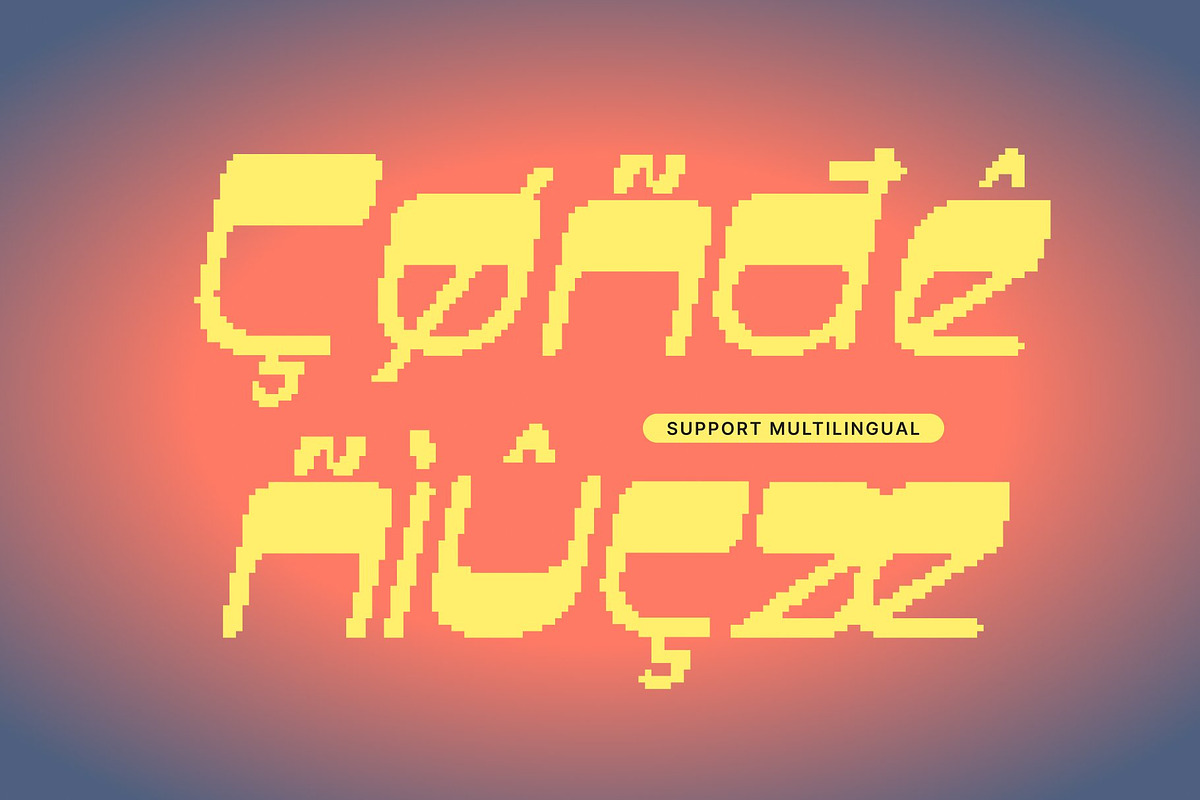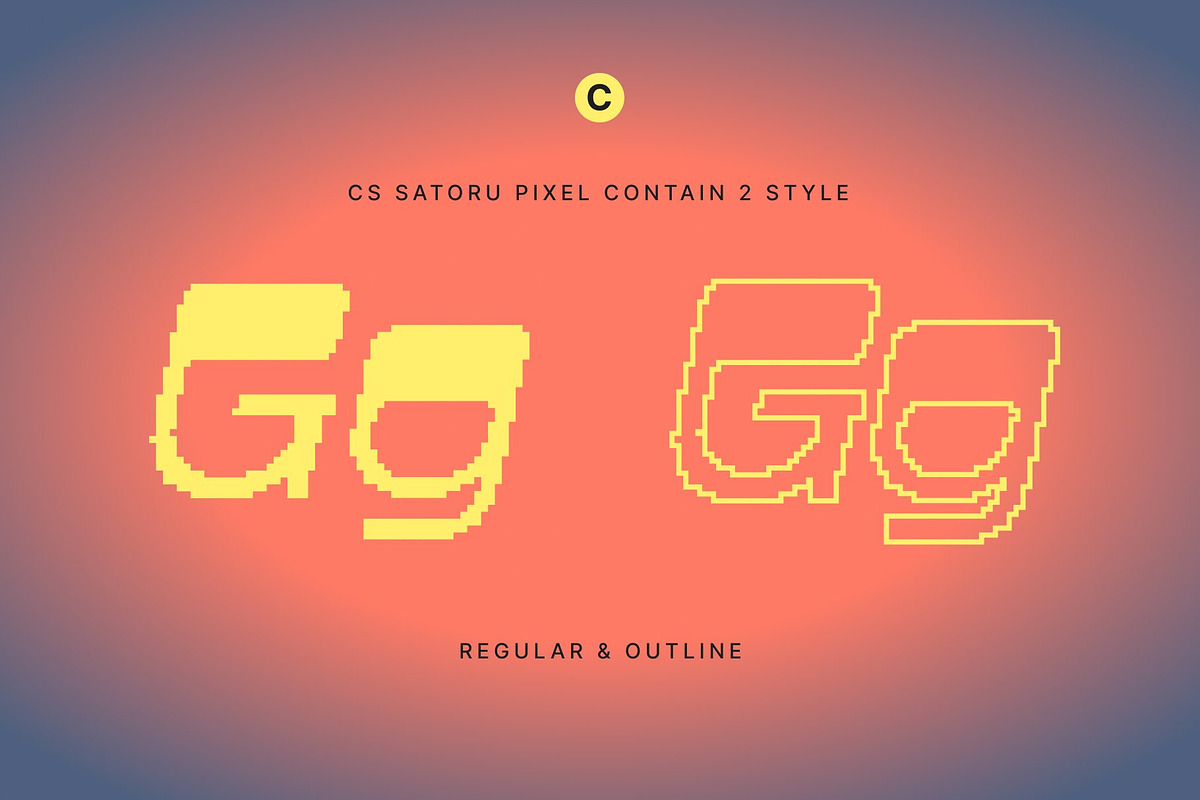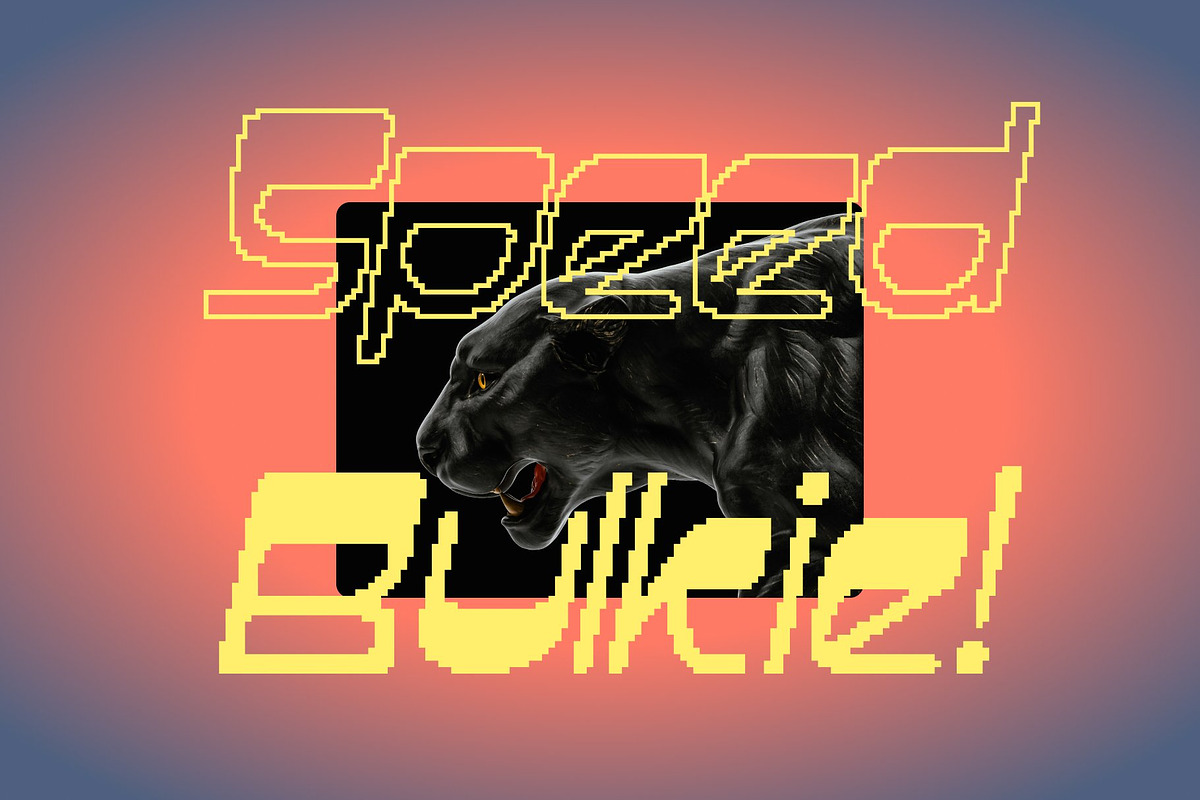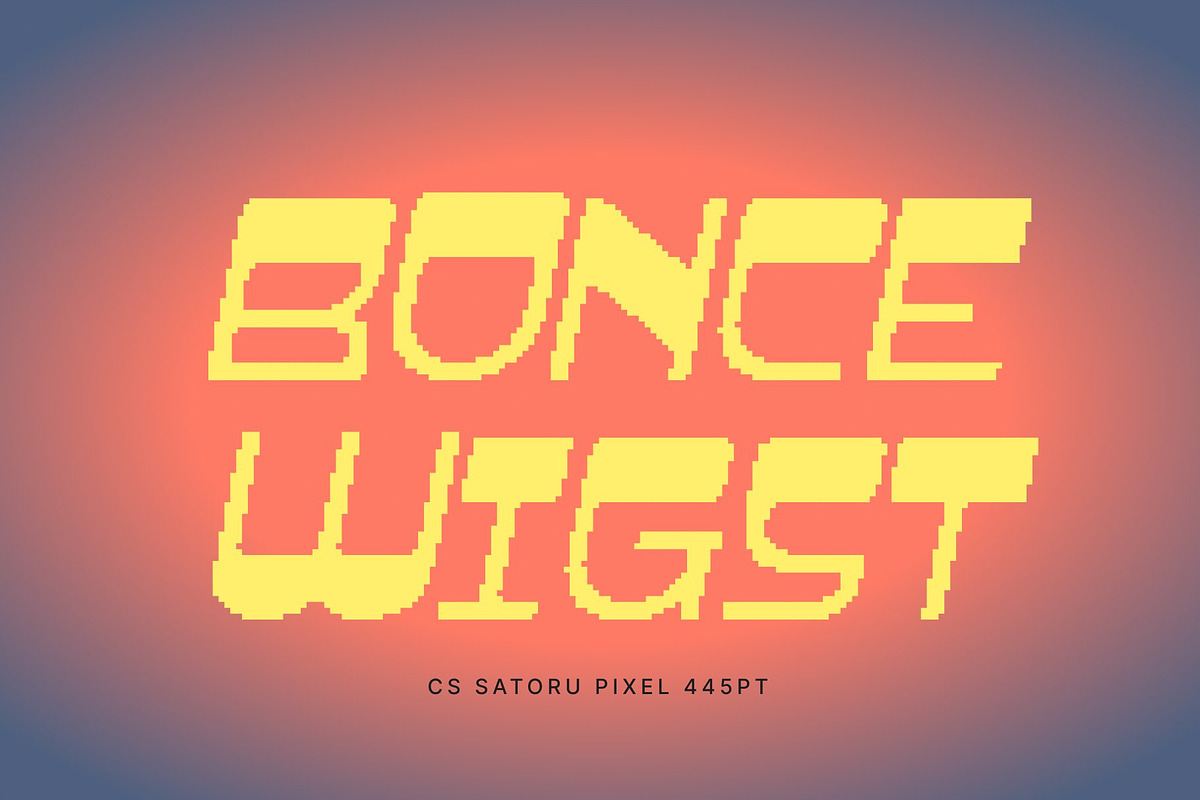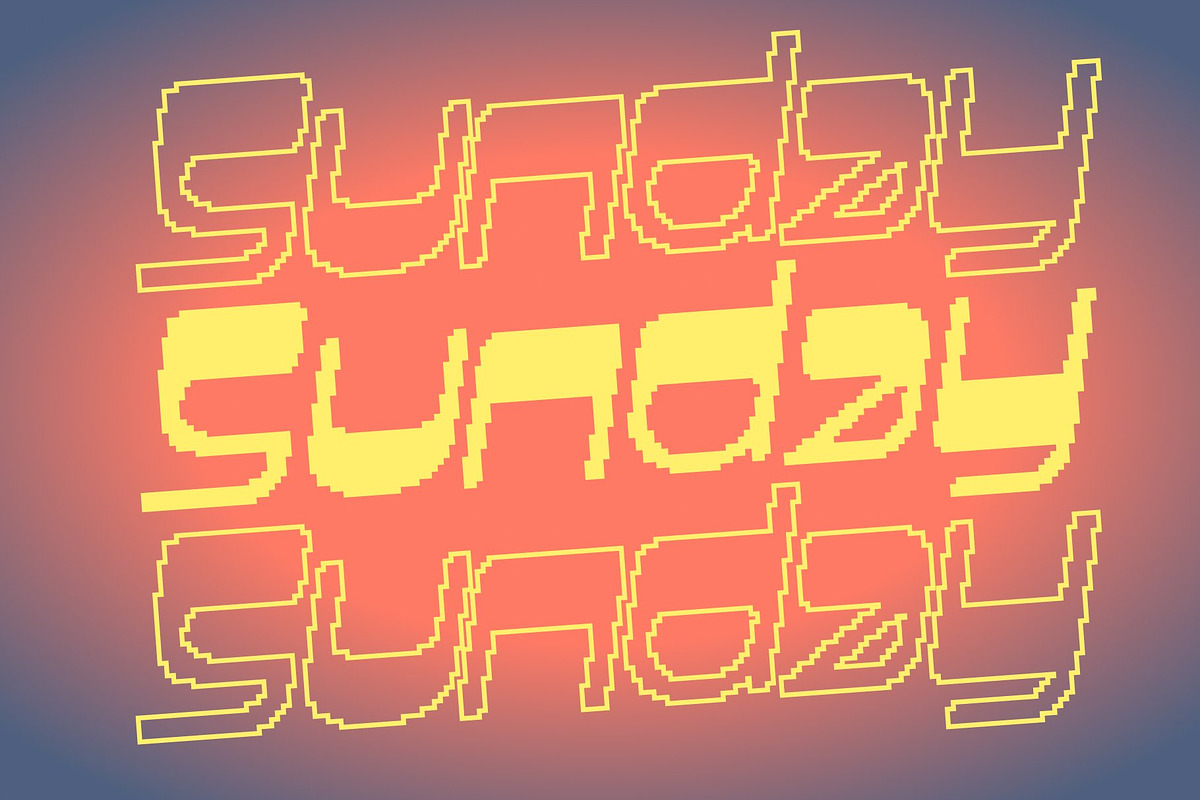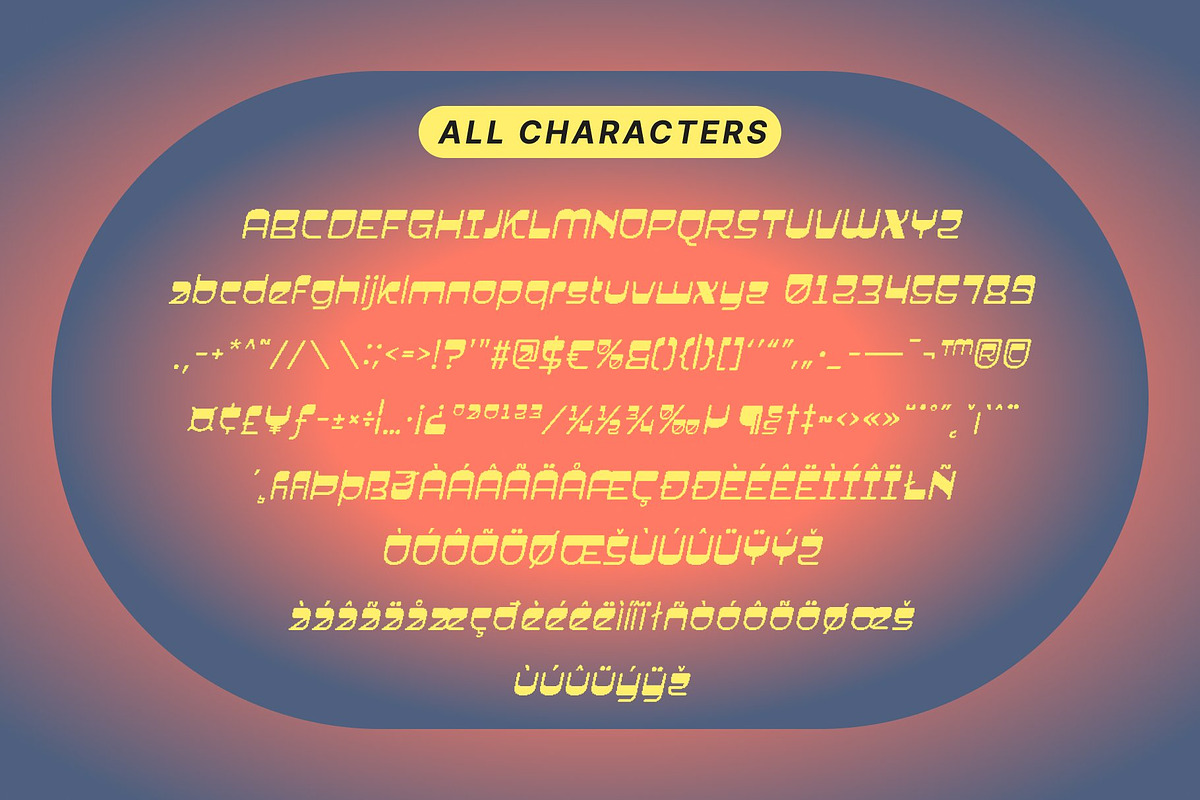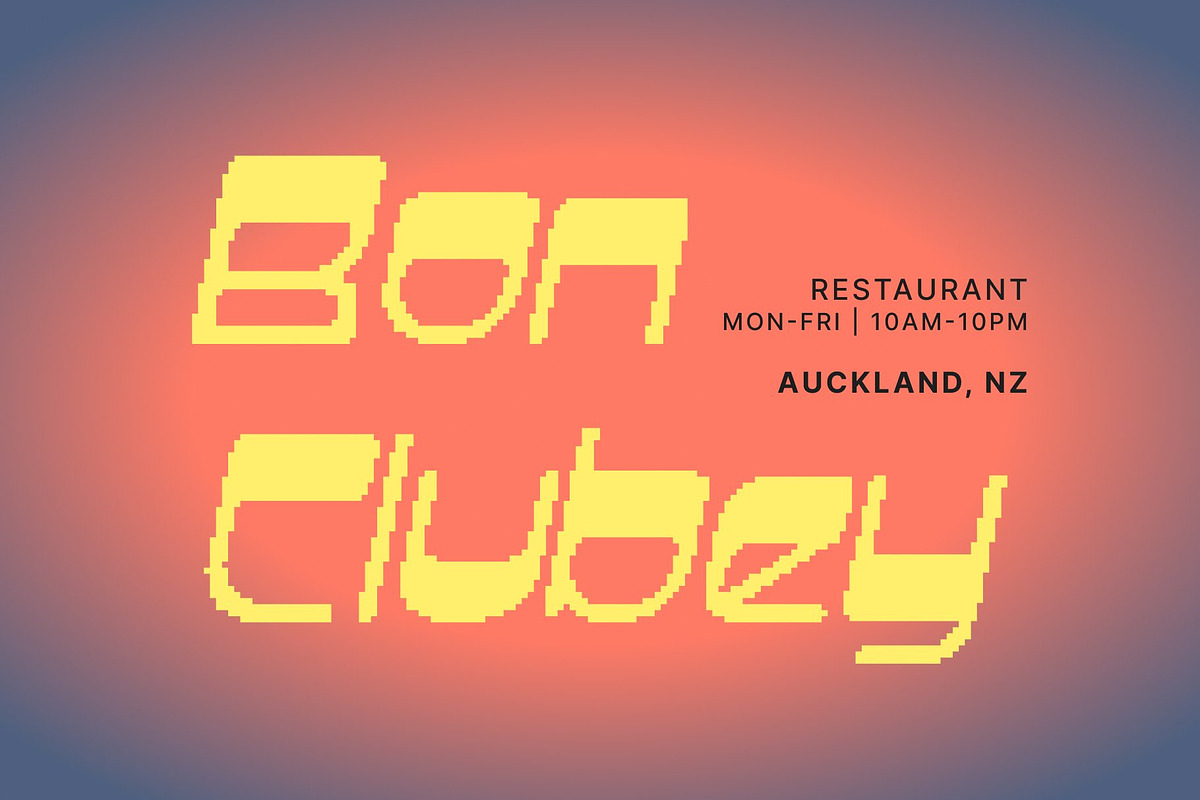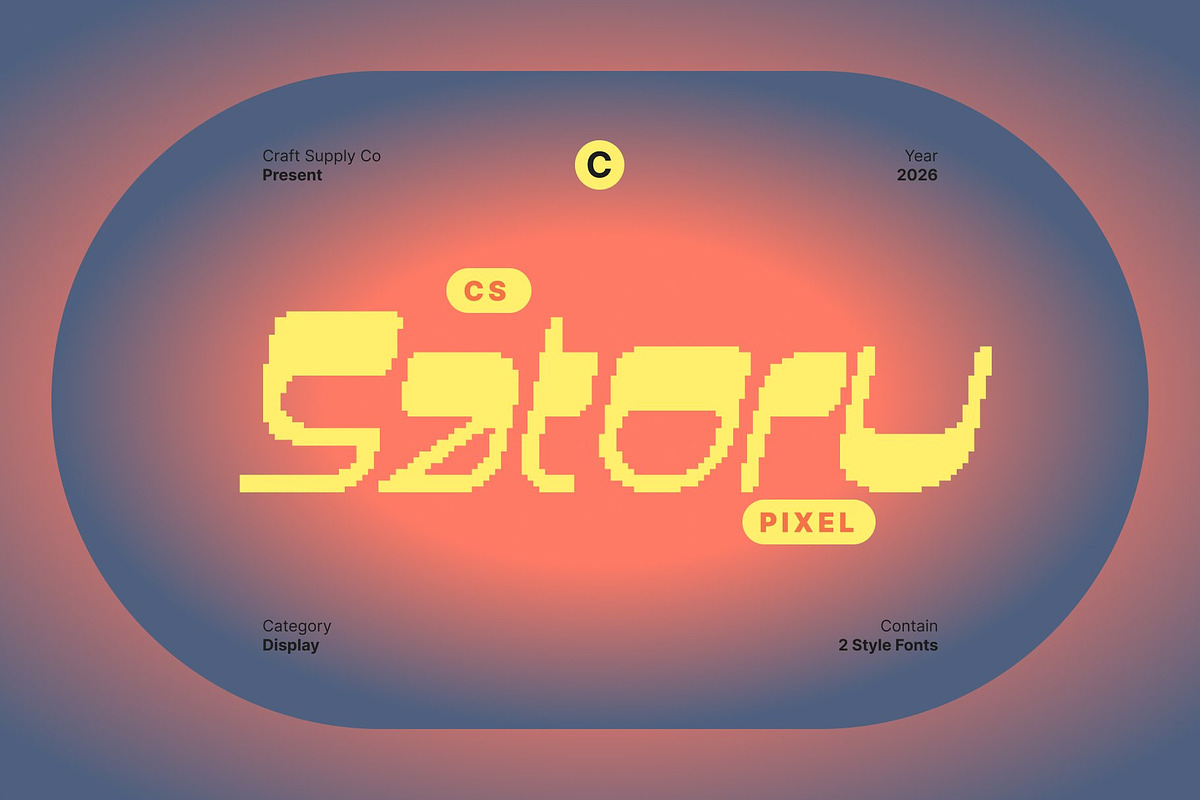
CS Satoru Pixel
CS Satoru Pixel – Bold Retro Form with Modern Confidence
Striking Reverse Contrast in Pixel Form This is a reverse contrast display font that merges retro attitude with modern confidence through precise pixel construction. Its bold letterforms feature unexpected weight placement, creating a dynamic visual rhythm that feels expressive, daring, and instantly eye-catching. The pixel structure enhances the contrast, giving the font a sharp digital presence with unmistakable character.
Modular Geometry with Retro Spirit Built on geometric, modular shapes, this font reflects classic design influences reinterpreted through a pixel grid. The structured forms maintain balance and clarity, while the retro-inspired proportions add personality and charm. This fusion of vintage modularity and modern pixel precision results in a font that feels nostalgic yet clean and contemporary.
Strong Visual Impact for Branding and Editorials Designed to command attention, this font performs exceptionally well in posters, branding, and editorial layouts. Its confident silhouette and expressive reverse contrast make headlines and logotypes feel bold and memorable. The pixel styling adds a distinctive edge, perfect for digital-focused visuals and statement typography.
Retro Expression with Modern Versatility This font captures the spirit of classic retro design while embracing a forward-thinking digital aesthetic. Its bold shapes, modular rhythm, and pixel-based construction make it a powerful tool for creative branding, promotional materials, and experimental projects that seek nostalgia, innovation, and strong visual identity in one typeface.
- CS Satoru Pixel Regular
- CS Satoru Pixel Outline